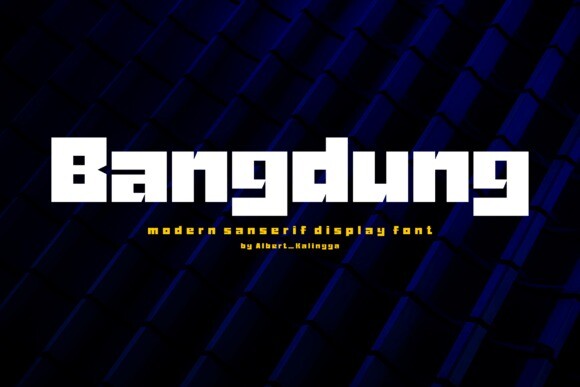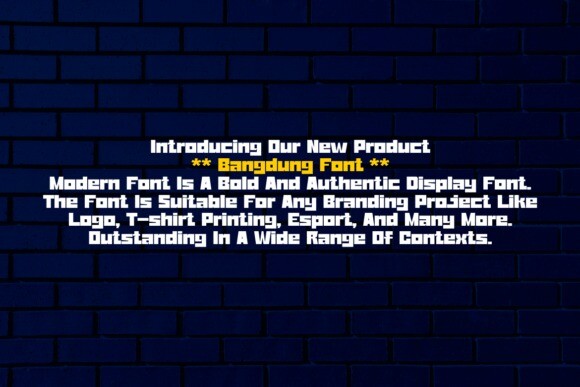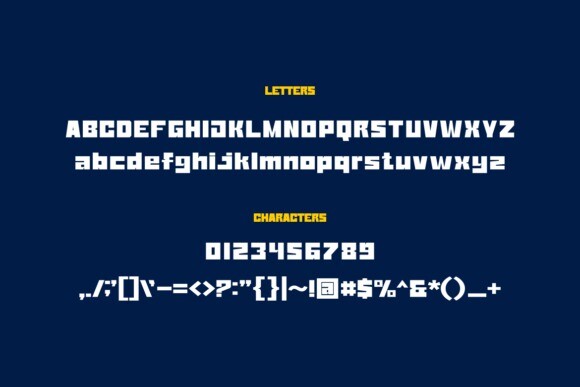
Bangdung Font
Bangdung Font – Modern Font is a bold and authentic display font. The font is suitable for any branding project like logo, esport, and many more. outstanding in a wide range of contexts.